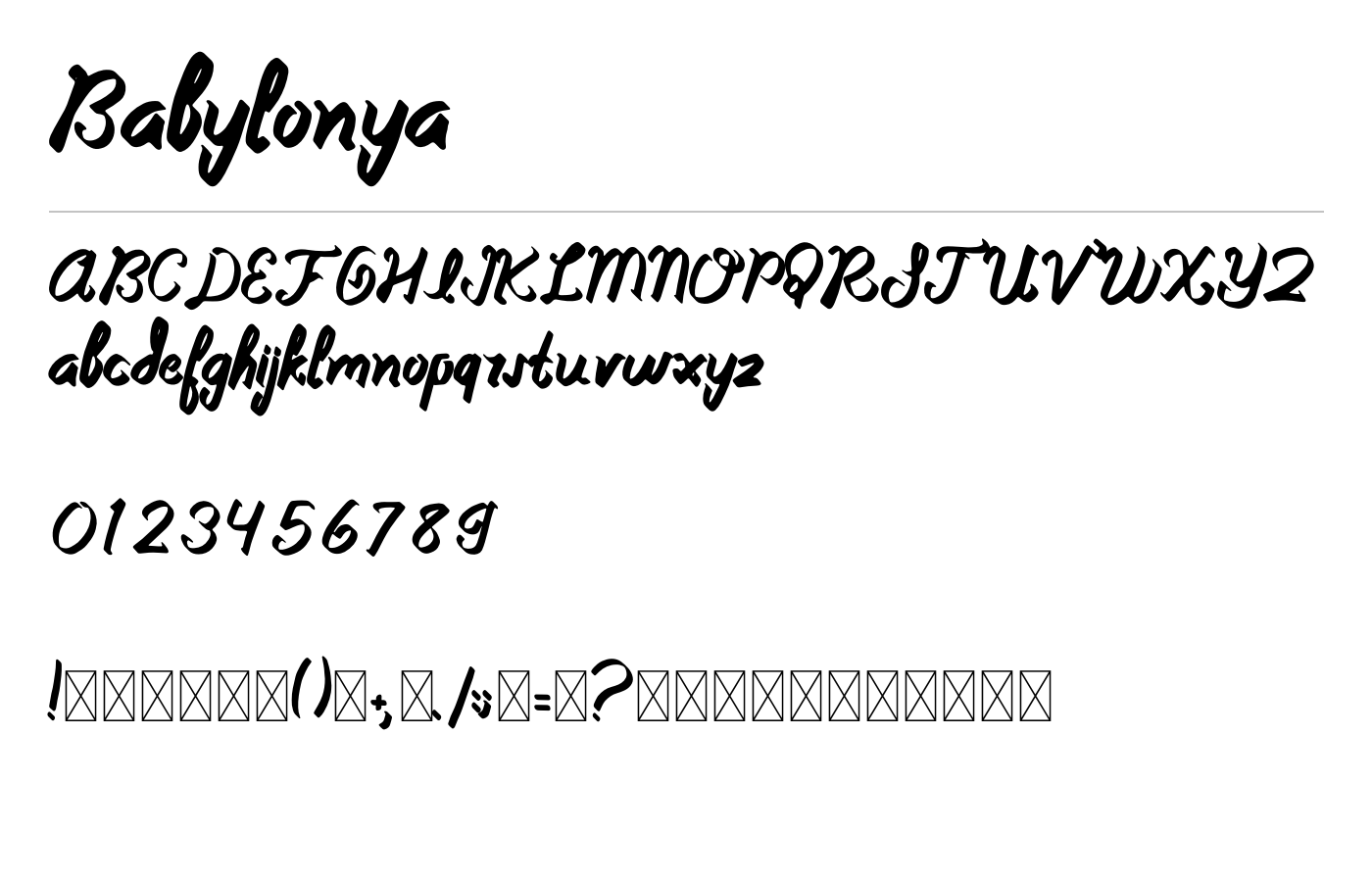
Babylonya is a playful and expressive script font with a bold weight and dynamic, hand-drawn strokes that convey a lively and artistic personality. Its distinctive, slightly irregular letterforms with moderate contrast and casual flair make it ideal for creative projects, branding, and headlines where a hand-crafted, informal look is desired. This font works well in logo design, posters, and packaging that seek a personal, approachable style with a touch of spontaneity.
Babylonya Font
About Babylonya Font
| Font family | Babylonya Font |
| Designer | Yahhya Anas Atok Illah |